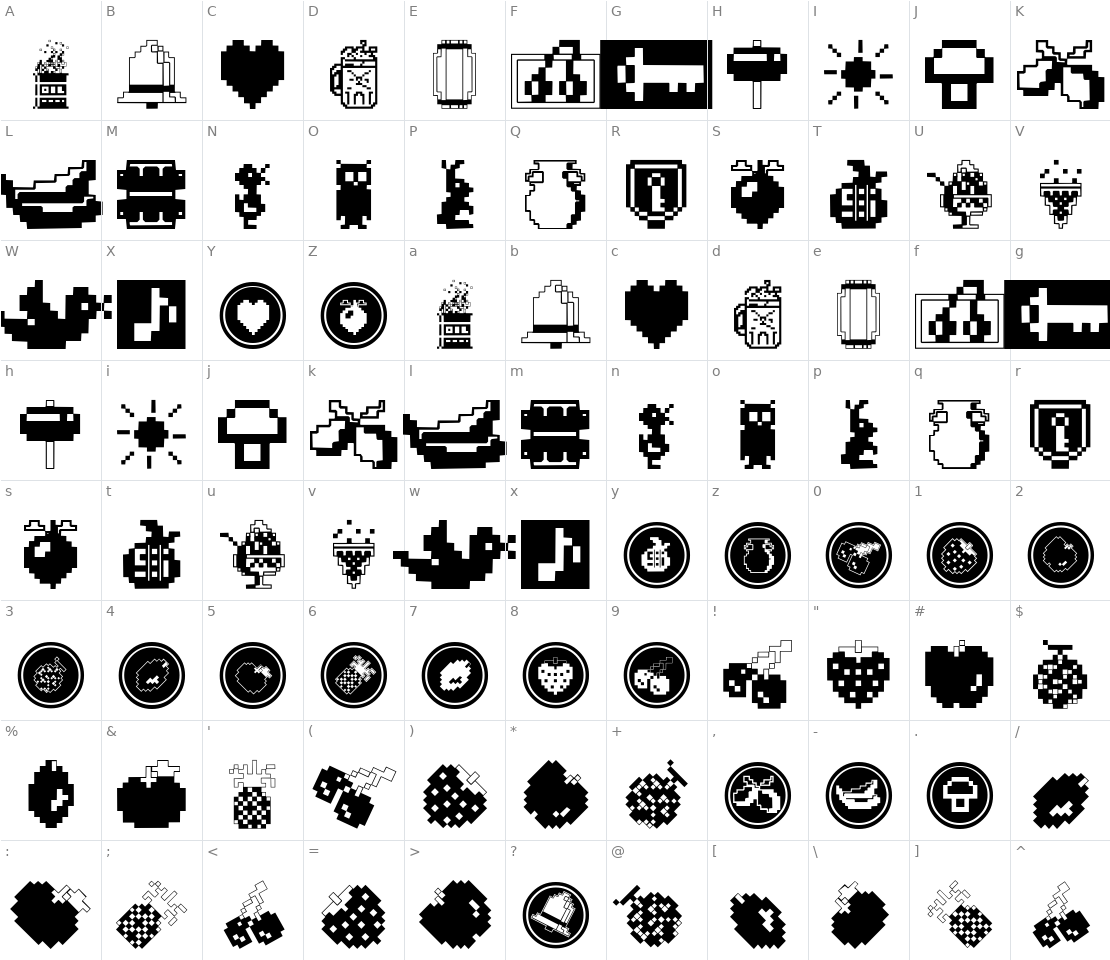
Fontalicious Thingbats
Fontalicious Thingbats is a pixel-style dingbat font from Fontalicious, featuring small bitmap icons of everyday household objects and miscellaneous symbols. The chunky, low-resolution glyphs have a distinctly retro feel, like inventory icons from an early PC adventure game. Useful for adding visual shorthand to retro-themed projects, pixel art layouts, or anywhere tiny illustrated icons feel more appropriate than polished vector graphics.